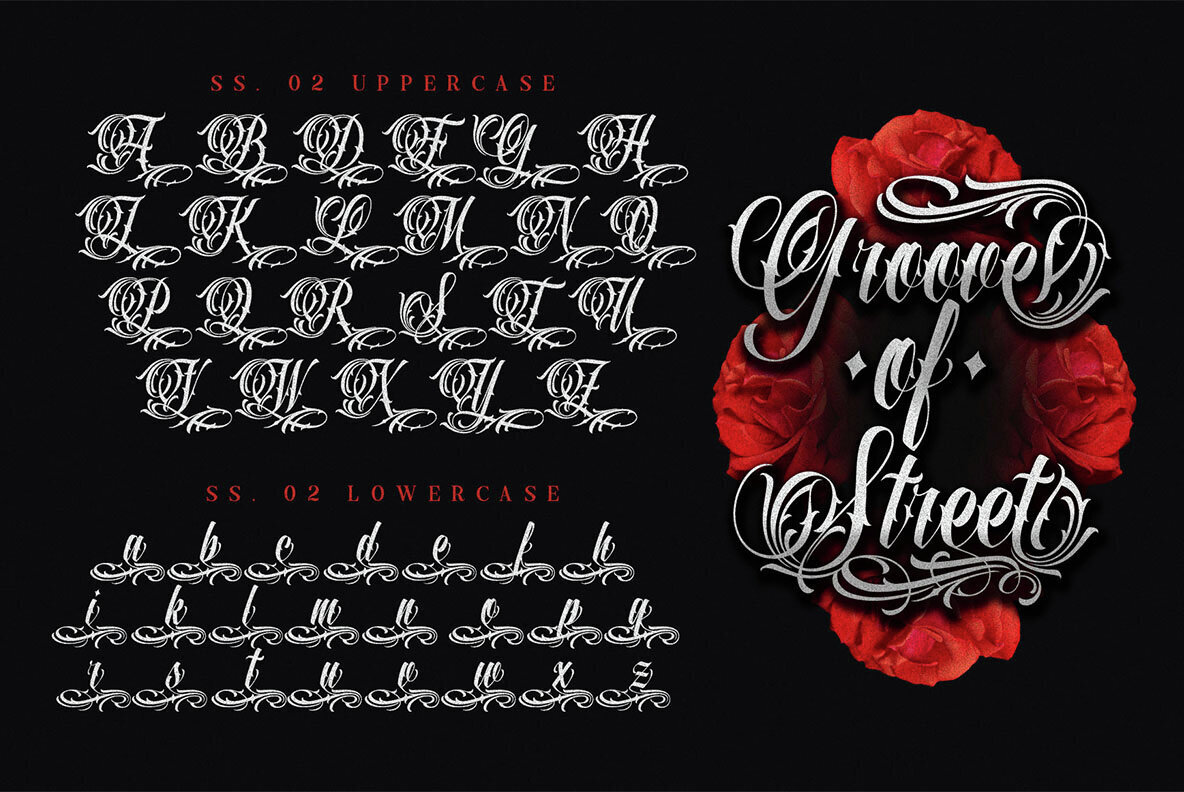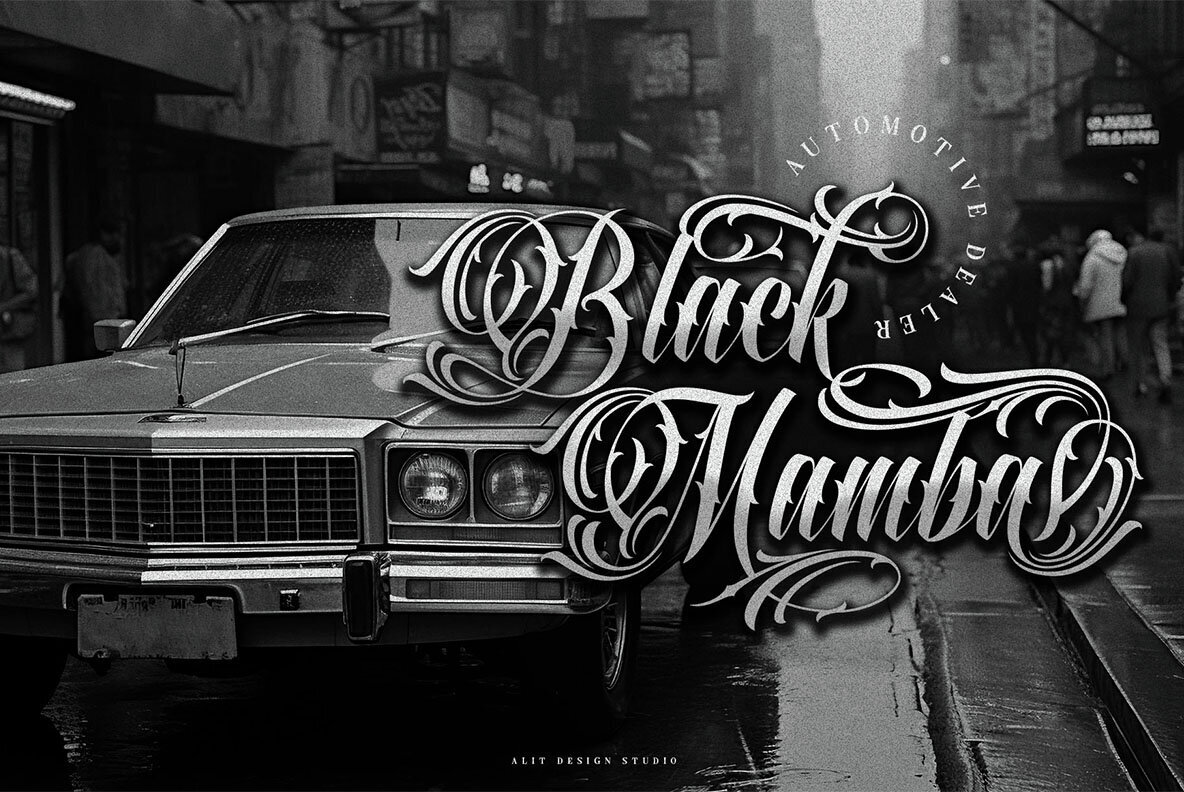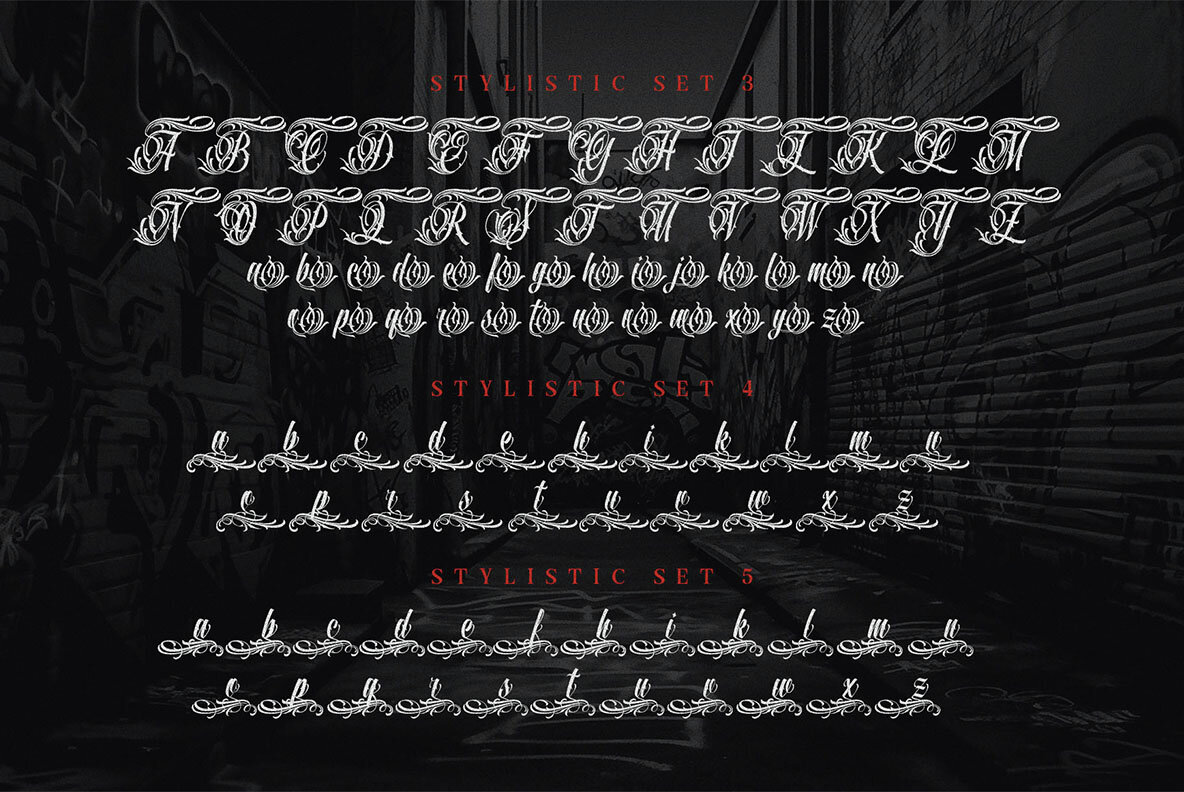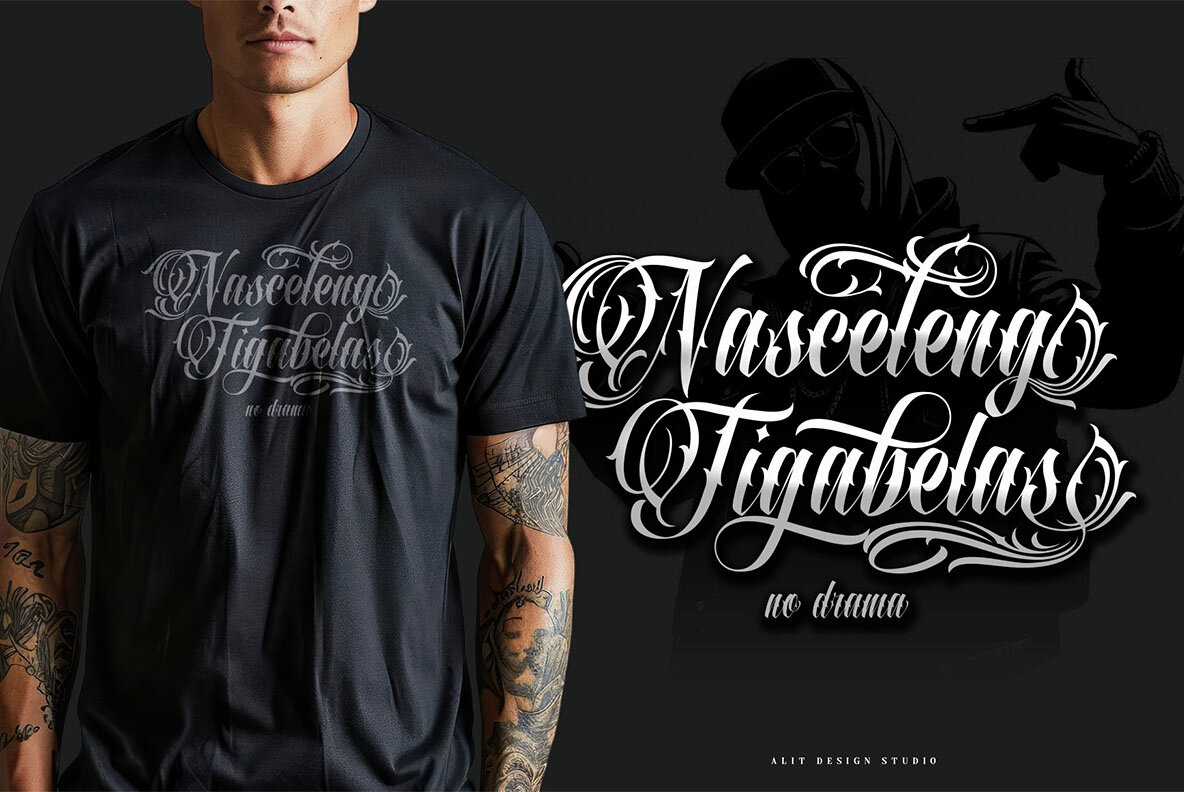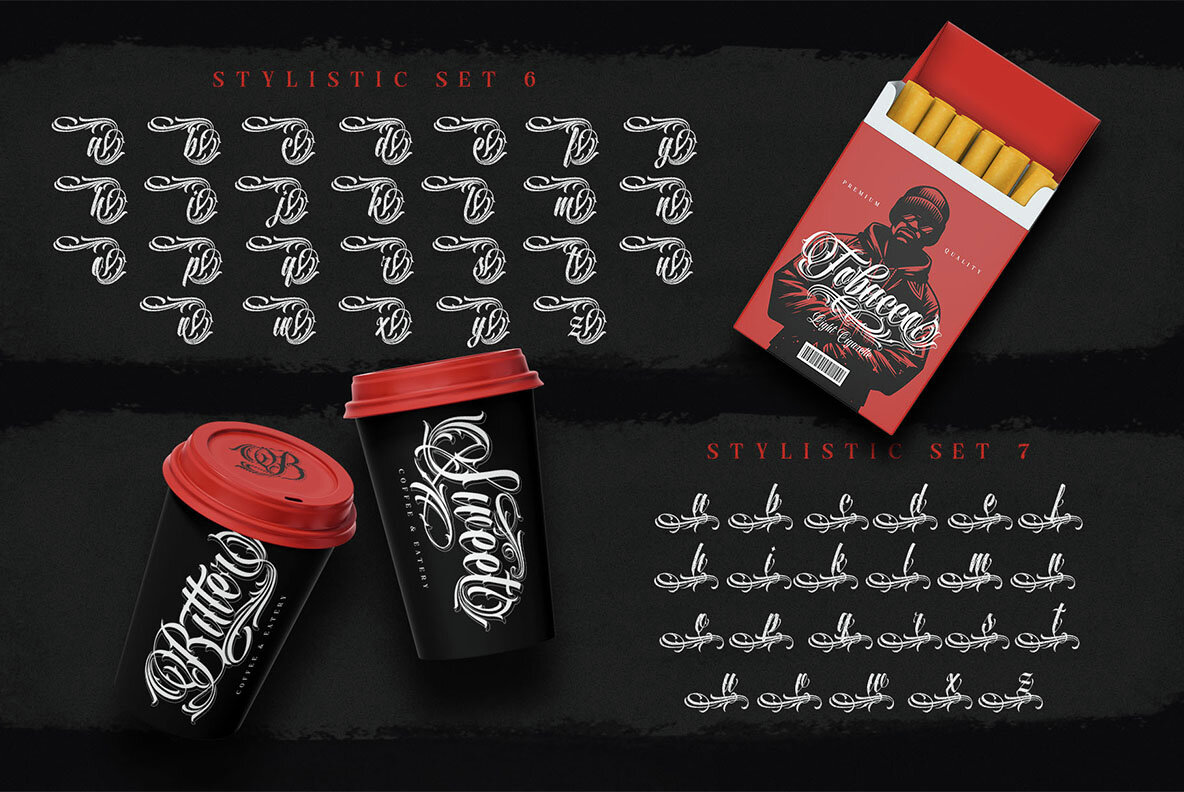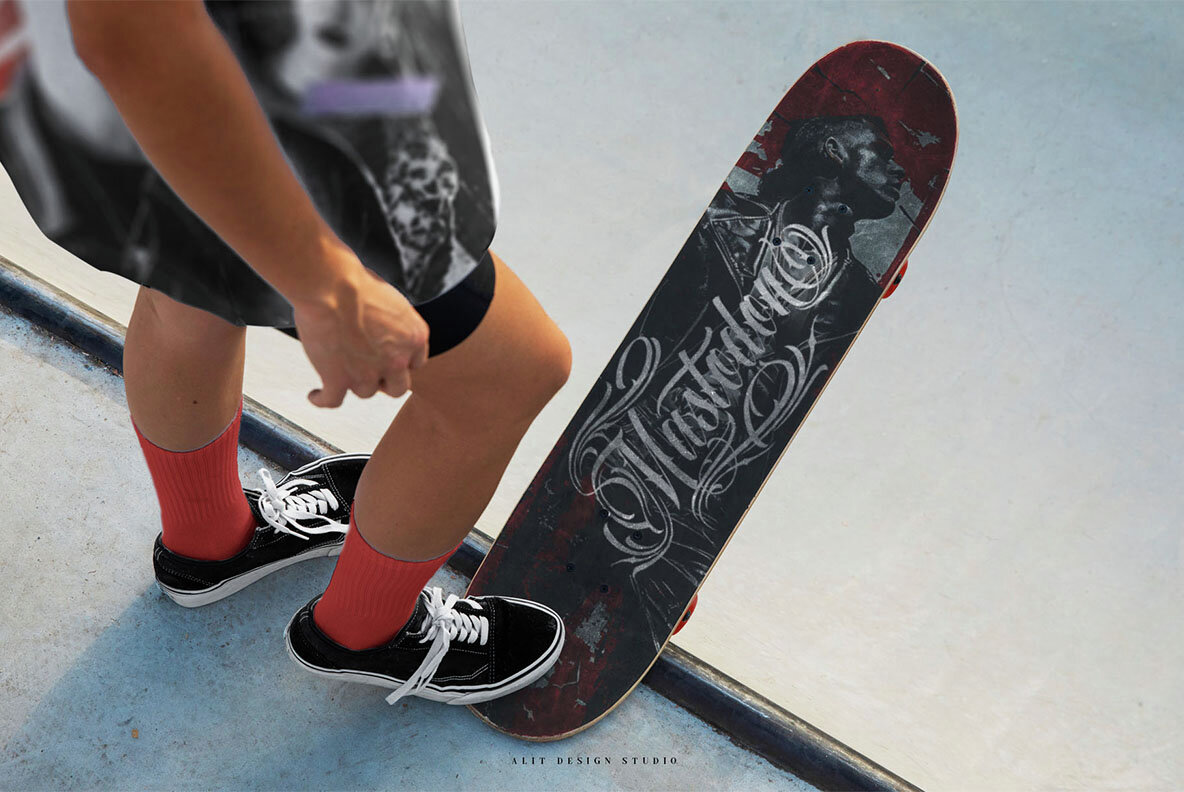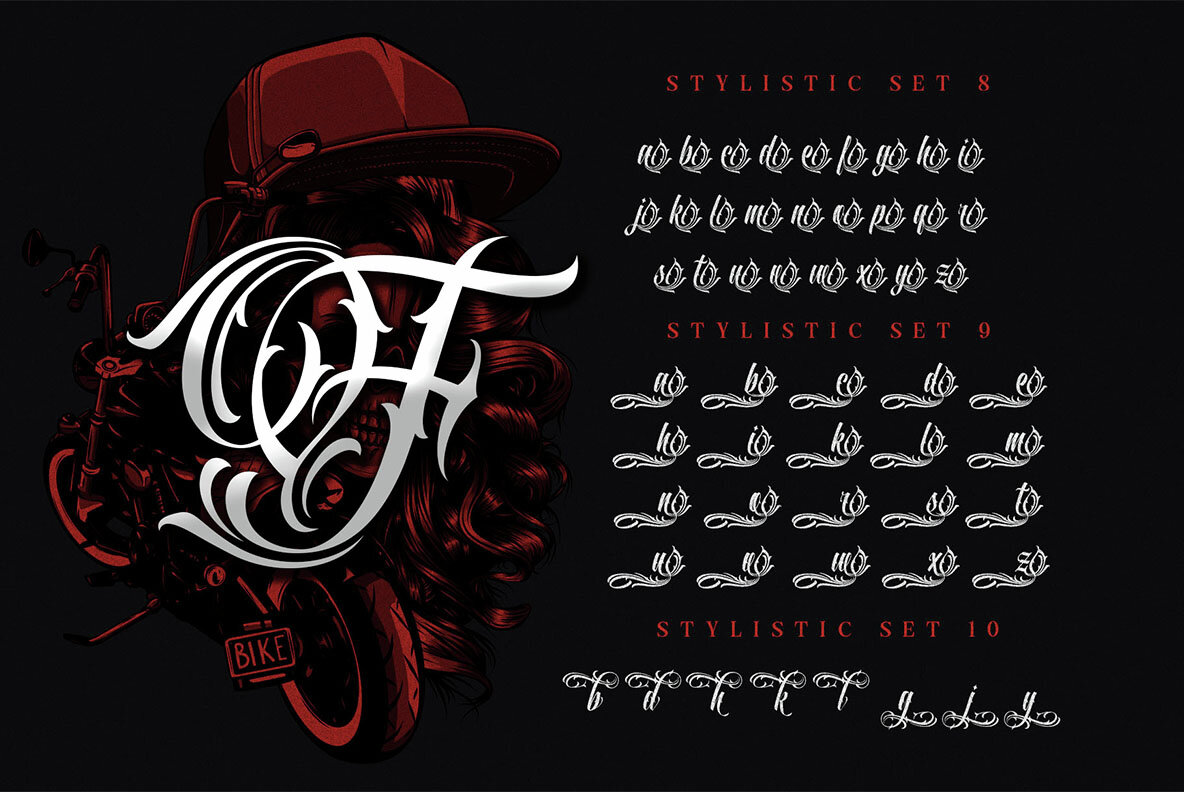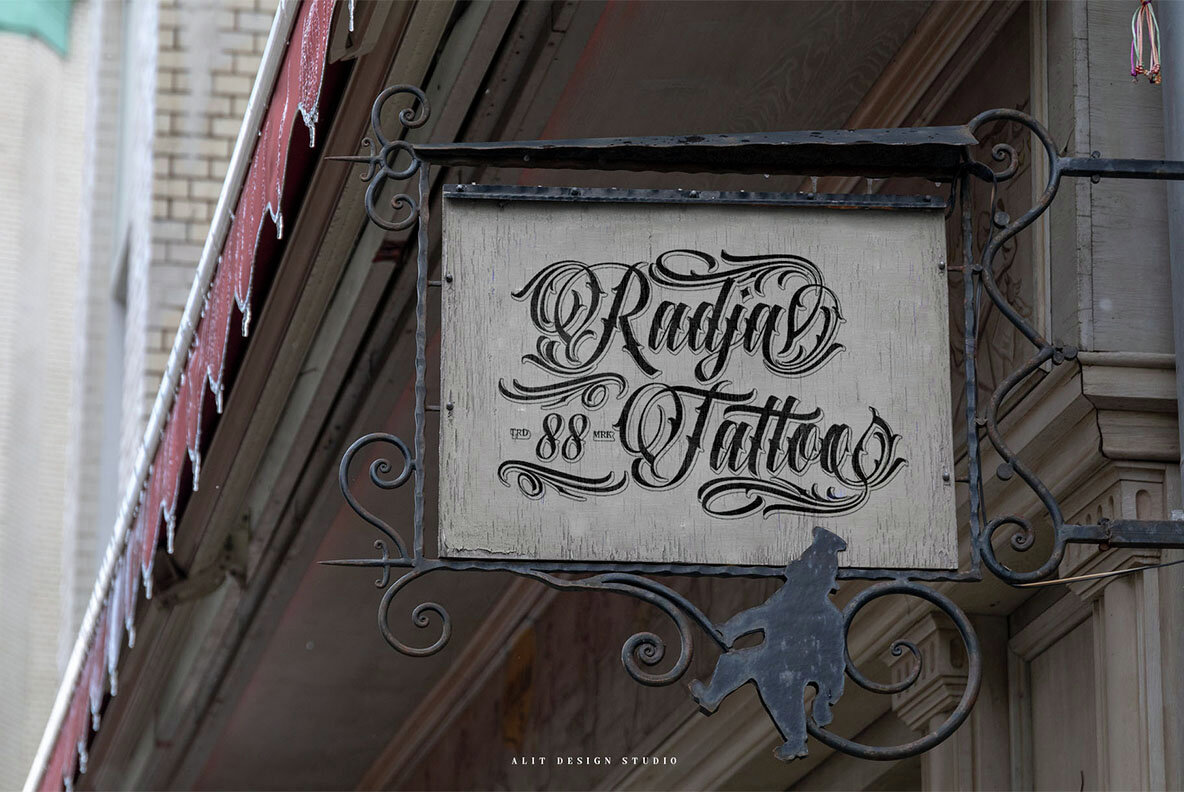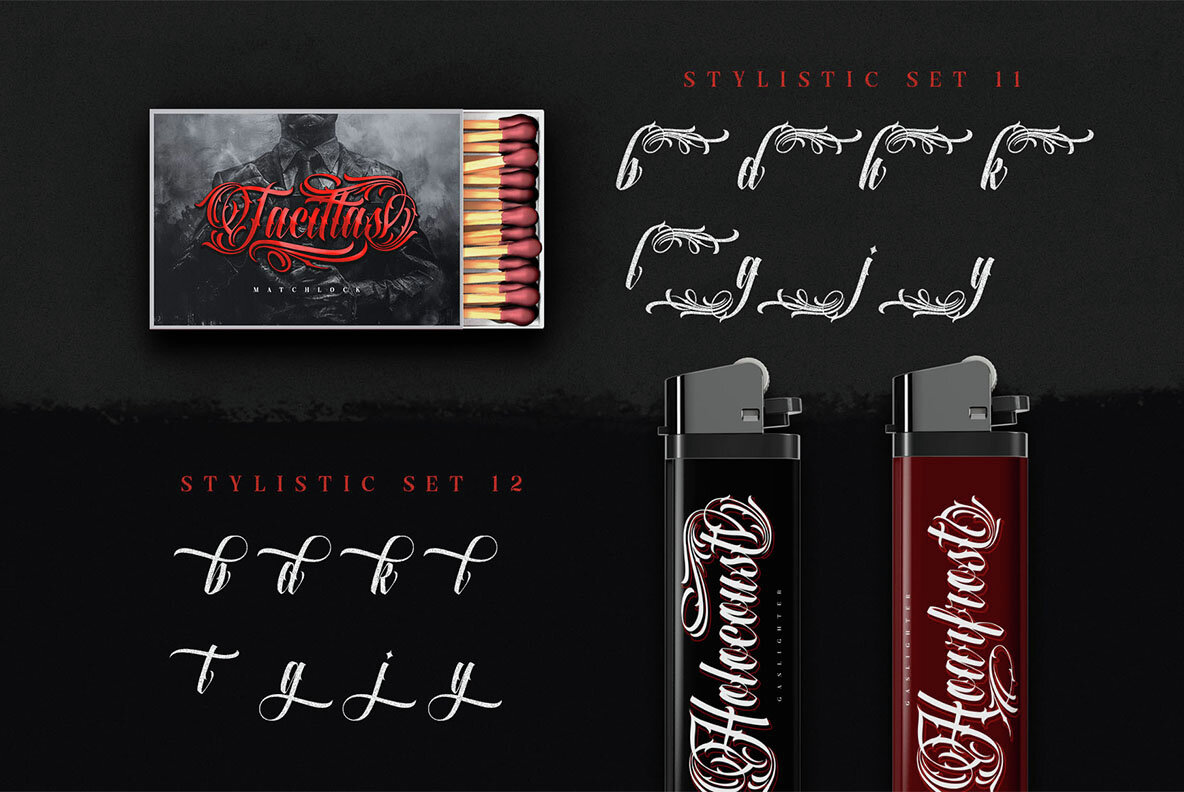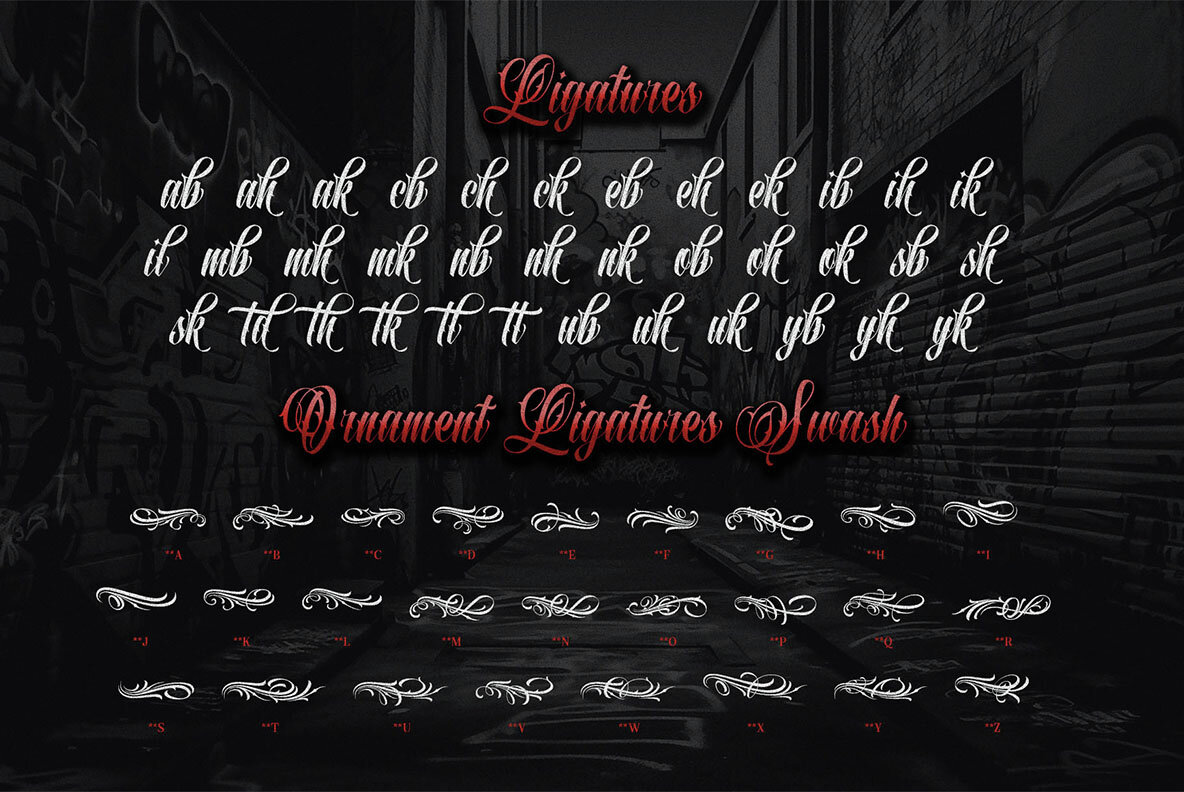
Master Familia Font
Master Familia Regular
Introducing Master Familia Script Font - the perfect font for creating gangster-inspired designs with a Mexican twist. This font is designed with intricate details, making it a great choice for tattoo designs or any project that needs a bold and edgy look. With a total of 847 characters, this font comes packed with all the features you need to bring your designs to life. Its swash, alternate, and ligature options give you the freedom to explore different styles and create truly unique designs. You can also rest easy knowing that this font supports multiple languages, making it accessible to a wider audience. One of the standout features of Master Familia Script Font is its PUA unicode. This means that you can access all its characters easily through your keyboard without the need for any special software. This makes it perfect for all your design needs, whether you're a professional designer or a beginner. This font is perfect for creating tattoos, logos, branding materials, posters, flyers, and so much more. Its unique style will add a touch of authenticity to any project, making it stand out from the rest. So if you're looking for a font that exudes boldness, edge, and a touch of Mexican flair, then look no further than Master Familia Script Font. Get it now and start creating stunning designs today!